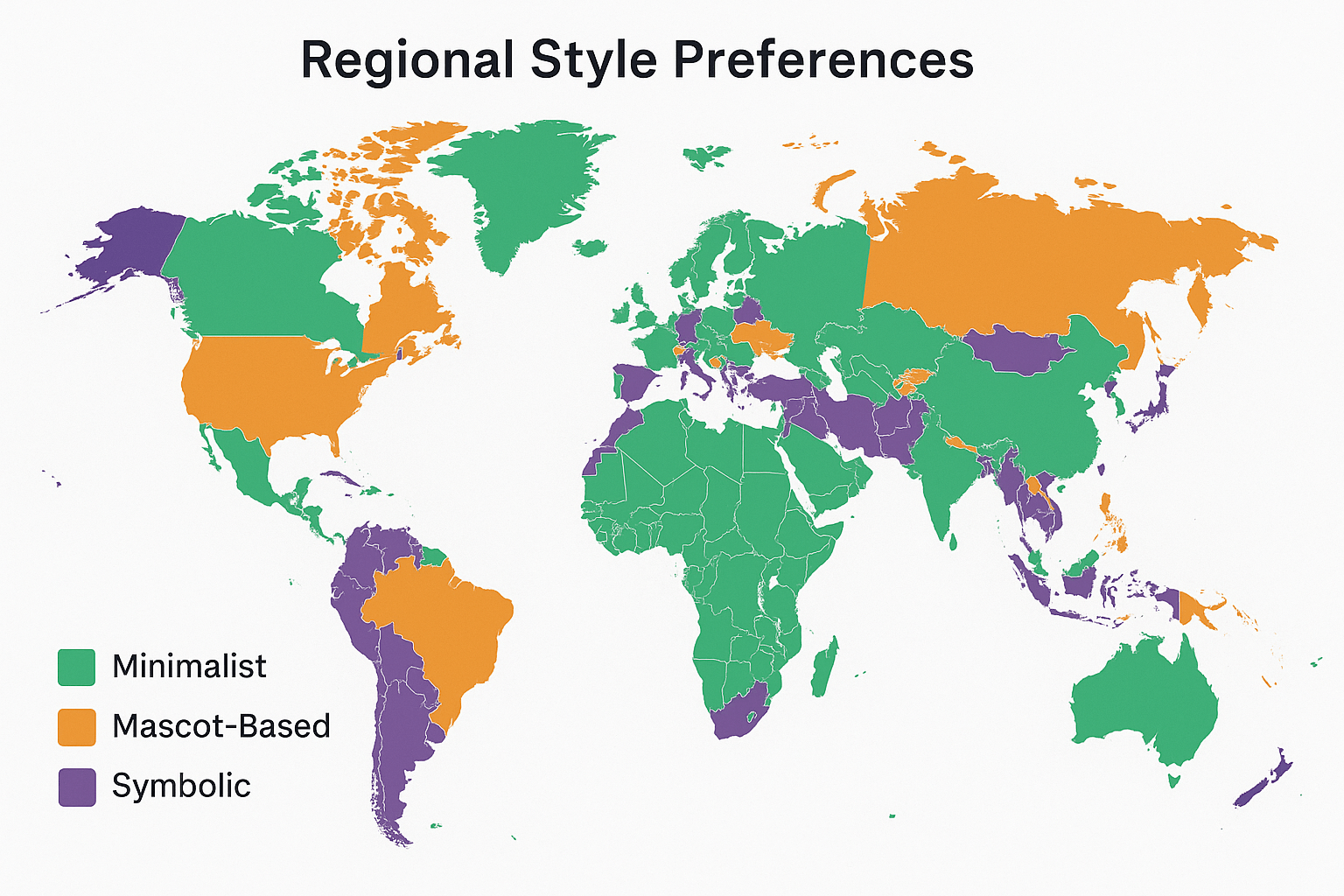
Student councils are giving their brands a major glow-up. Across campuses, their visuals are now sharper, cleaner, and more creative. A logo has become the face of student leadership, showing off pride, energy, and culture.
The project was run with the help of our design researchers, who mapped patterns and tracked how these logos evolved. The results revealed three big trends shaping council branding today: minimalism, mascots, and meaningful symbolism.
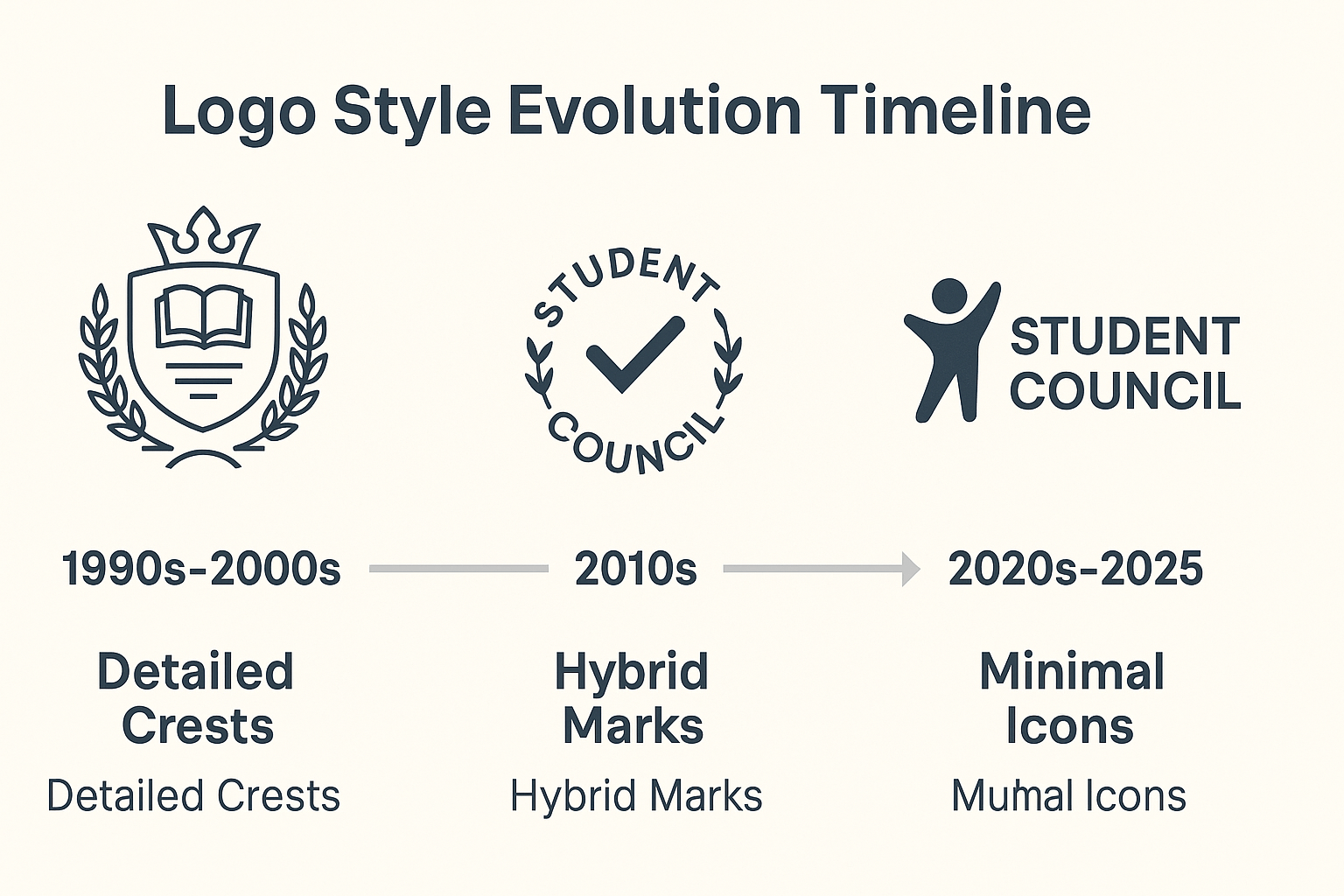
How We Gathered Data
We reviewed 200 student council logos from websites, social media, and brand kits. Each was coded for:
- Style (minimalist, detailed, vintage)
- Motif (mascot-based, symbolic, abstract)
- Color palette (school colors, monochrome, multi-color)
- Typography (serif vs. sans-serif, monograms)
- Shape and layout (horizontal, stacked, circular)
We also spoke with 15 student designers.
The Rise of Minimalism in Student Council Logo Design
Minimalism is the leading look right now. About 58% of the logos we saw used flat design, clean typefaces, and bold geometric shapes.
These logos center on big initials, simple icons, and solid colors that stay crisp at any size. The University of Canberra SRC used its acronym in university blue with a clean horizontal layout. The University of Bath SU added bright block shapes around a blue wordmark for a modern, fun look.
"We wanted something that looks fun, not like a government office," said Hana M., a student designer from Sydney.
Minimalist logos stand out on screens, print well on merchandise, and align with how students expect modern brands to look.
Mascots and School Spirit in Modern Logos
Mascots are still popular when councils want a strong school identity.
About 27% of the logos we reviewed used mascots or athletic symbols, especially in North America. Mascots used to be detailed cartoons, but now appear as clean icons, like a hawk's head or a tiger's silhouette.
"We wanted a design people would wear on hoodies, something that felt like a cool student council logo," said Liam S., a U.S. student council president.
Mascots bring instant recognition, spark pride, and work well on merchandise.
Symbolism at Work – Icons That Carry Meaning
Symbols are growing fast in council branding.
About 31% of the logos used abstract or symbolic elements. Torches signal leadership, books represent knowledge, laurels show achievement, and stars hint at ambition.
Trinity College Dublin's SU logo is a strong example. It shows a cube-shaped house (their historic building "House 6") with bilingual acronyms on the sides.
Designers often build their whole system around one symbolic icon, then add color and text versions for different uses.
Logo for Student Council Types by Share (2020-2025)
Logo Type
Share of Logos
Key Features
Minimalist
58%
Flat icons, sans-serif type, geometric shapes
Mascot-based
27%
Animal or athletic symbols, school spirit focus
Symbolic/abstract
31%
Torches, books, laurels, campus landmarks
Traditional crests
12%
Shields, mottos, heraldic details
Hybrid styles
18%
Combines symbols/mascots with a modern layout
Some councils mix styles, like using a mascot icon with a minimalist wordmark.
Tradition Reimagined – Blending Old and New
Around 12% of councils still use crest-style logos, usually at older universities.
These logos borrow shield shapes, wreaths, mottos, or parts of the university's coat of arms. They show heritage and continuity.
Many have recently been simplified: dropping Latin mottos, flattening colors, and cleaning up shapes. Some now use the full crest only for formal settings like graduation banners, while using simpler logos for social media and student events.
This balance honors history while staying relatable to today's students.
Color & Typography Choices Driving Impact
Color and type are what make a logo stick.
Color trends:
- Bright tones like electric blue, lime, and orange for energy
- School colors for familiarity
- Monochrome backups for dark backgrounds or merch
Typography trends:
- 87% of our sample used sans-serif fonts for easy reading
- Many played with monograms and custom initials
Design teams brainstorming student council logo ideas often start with one standout color, a clear font, and a shape that works across screens and print.
In Closing
Student council logos are getting simpler, bolder, and more expressive.
They show pride, unity, and modernity in a way students connect with fast. These logos work on everything from Instagram posts to graduation banners, which creates consistent identity.
If your council is planning a redesign, focus on three things: simplicity, meaning, and versatility. A strong logo can outlast your term and become part of campus culture.